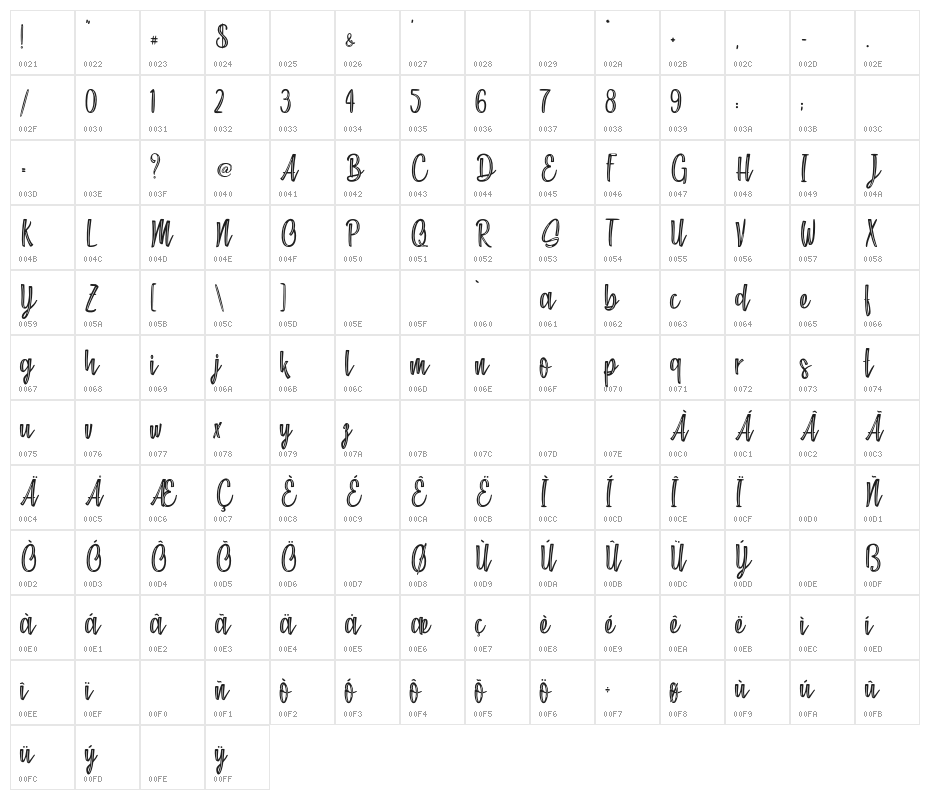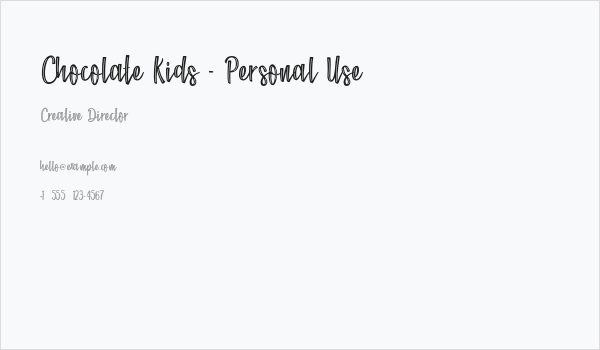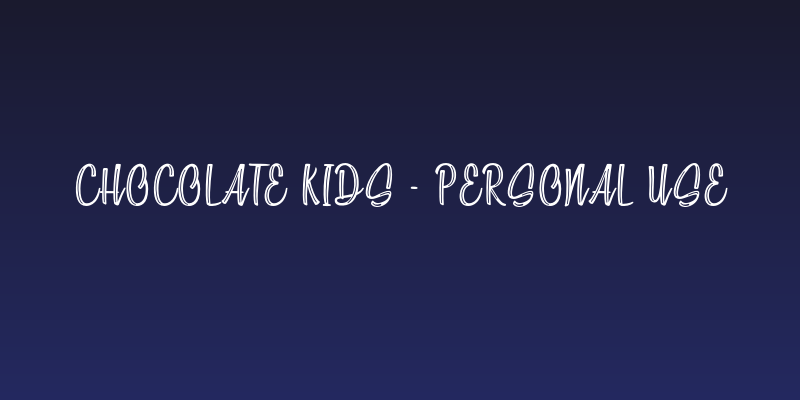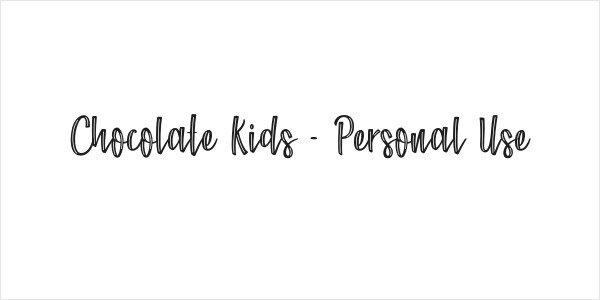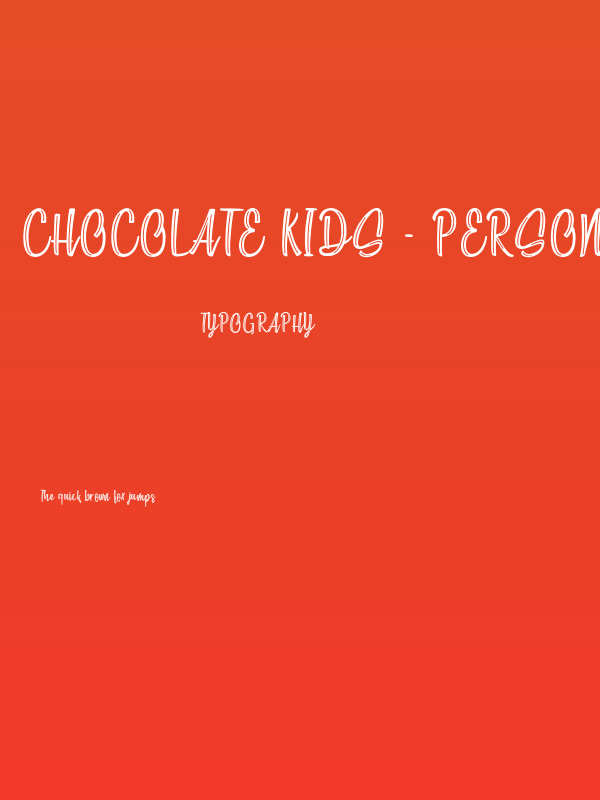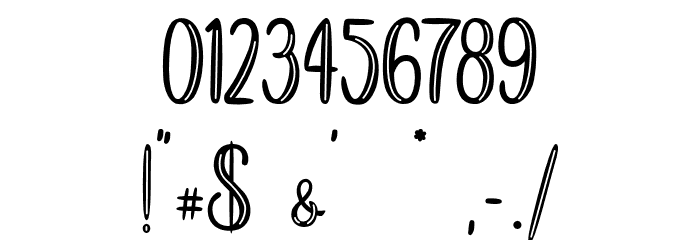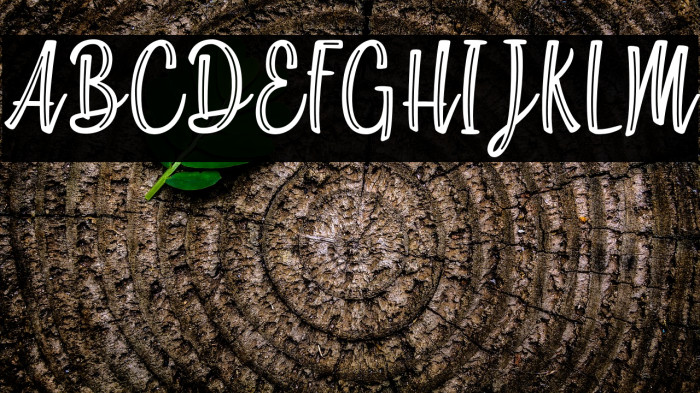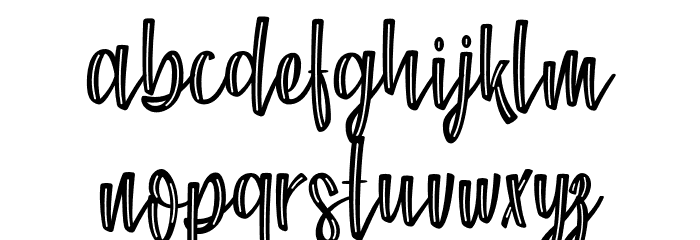
Chocolate Kids - Personal Use Font
This playful and whimsical font features a handwritten style with a bold and energetic appearance. The letters are slightly slanted, giving a dynamic and lively feel. The strokes are thick and consistent, with a smooth flow that mimics natural handwriting. The uppercase letters are tall and slightly narrow, while the lowercase letters maintain a consistent height, adding to the font's readability. Numbers and special characters are designed to match the playful aesthetic, making this font suitable for creative and informal projects.
| Proposed Projects | Ideal for children's book covers, playful branding, greeting cards, and creative social media graphics. |